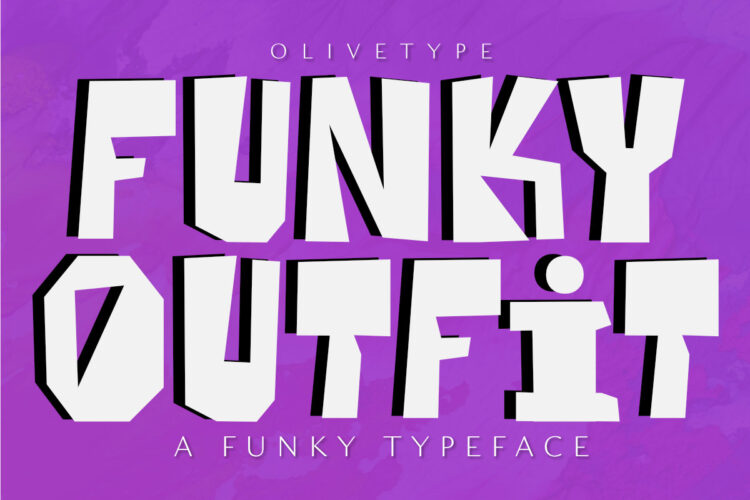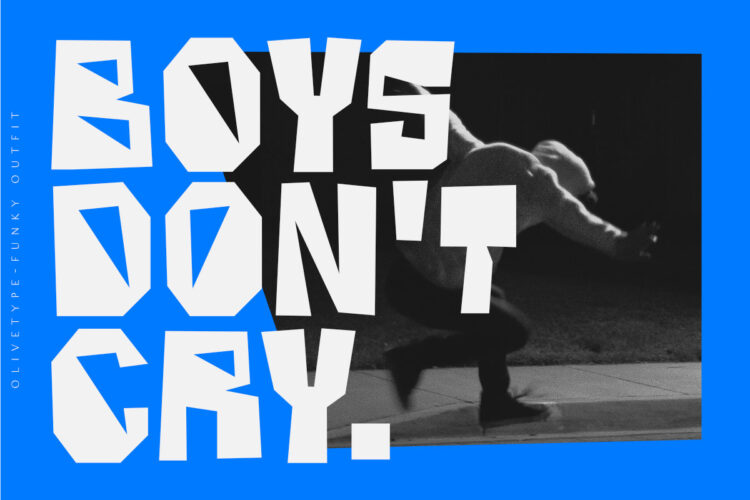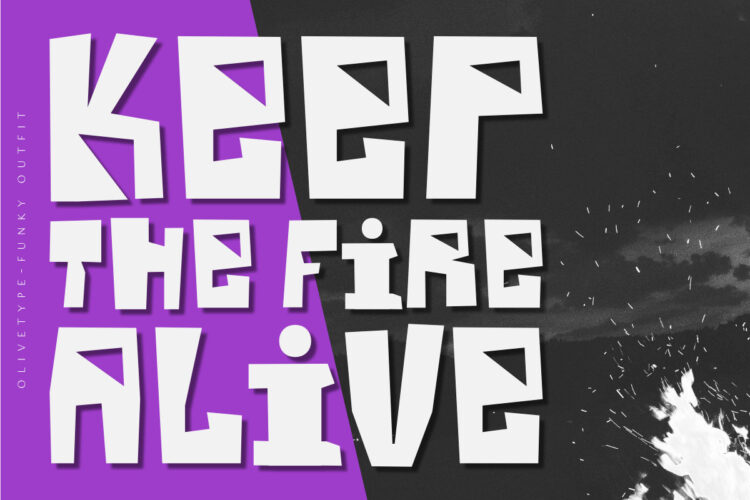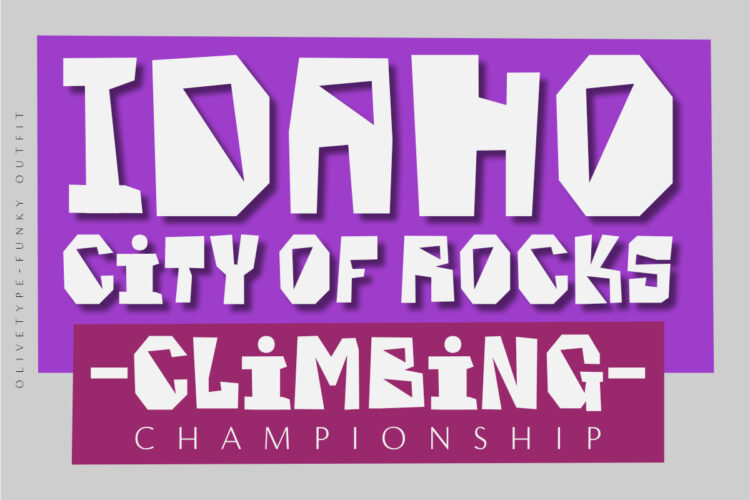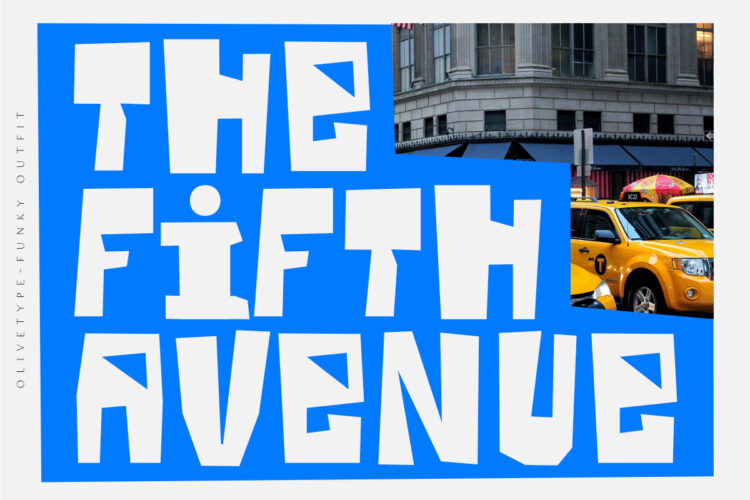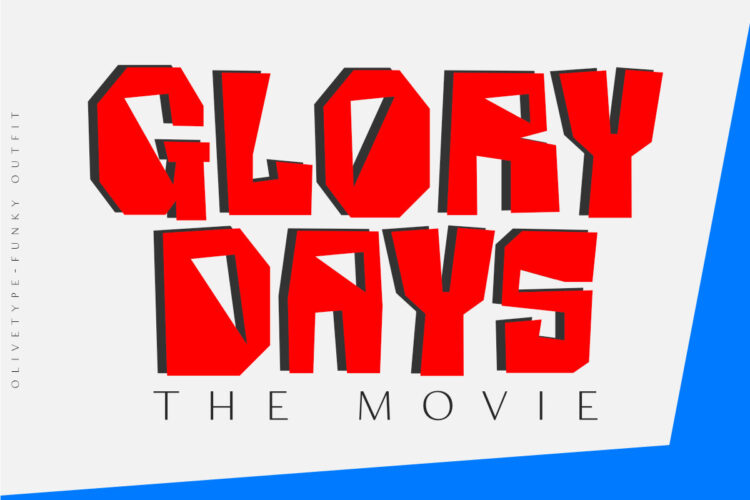
Love to be different? Mix up your design with Funky Outfit, the all-caps display typeface that is fun, youthful, and playful. Funky Outfit is a striking display typeface with a distinctive personality. The quirky, energetic design of this font suits a variety of uses, ideal for headlines, logos, posters, product packaging, and more.
Make your design stand out with Funky Outfit!